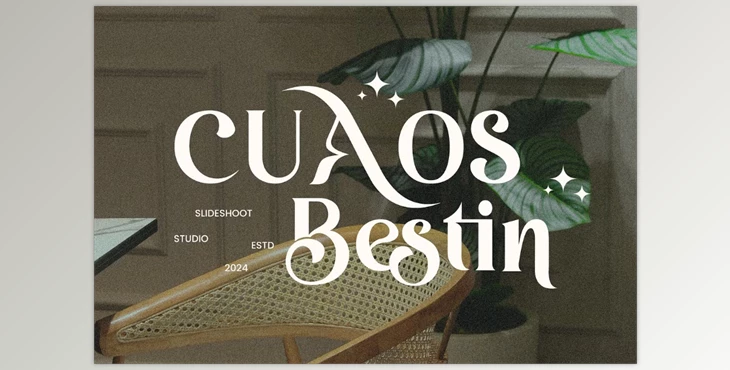
Cuaos Bestin || Serif Font Creative Market:
Cuaos Bestin is a versatile serif font that blends modern and retro styles, offering an elegant and sophisticated aesthetic. Its sleek design, enhanced with stylish ligatures and character alterations, makes it ideal for a variety of creative projects, including invitation cards, logos, movie titles, business cards, and more.
- Includes stylish ligatures for enhanced typography
- Uppercase and lowercase letters
- Supports numbering and punctuation